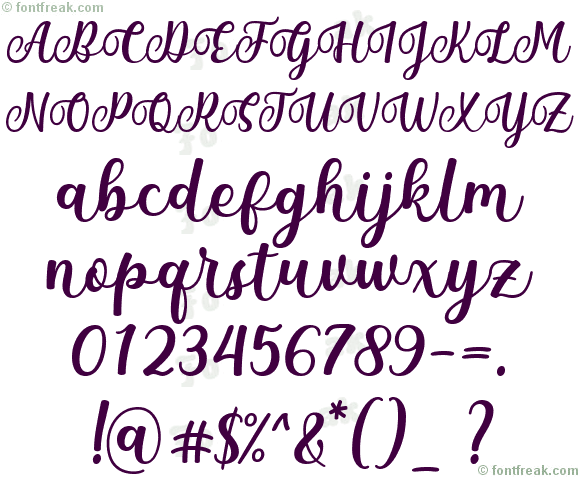
Mantul
About Mantul
Mantul, designed by Situjuh Nazara, is a captivating script font that beautifully blends elegance and modern flair. This freeware font, released in 2018 under the tag 7ntypes, showcases a flowing, cursive style that adds a personal touch to any project. The visual characteristics of the Mantul font feature a medium stroke weight with graceful curves and gentle contrasts. Its smooth, connected letters create a cohesive look, while the slight variations in line thickness offer a sense of dynamism and rhythm. The ample spacing between characters enhances readability, making it ideal for both digital and print applications.
The Mantul font is perfect for a variety of creative use cases. It shines in wedding invitations, where its romantic style can evoke feelings of love and celebration. Additionally, it works wonderfully for restaurant menus, providing a warm, inviting atmosphere that complements any dining experience. Graphic designers can also leverage Mantul in branding projects, as its distinctive charm can elevate logos and promotional materials. Content creators will find it suitable for social media graphics, where a handwritten aesthetic can engage audiences and create a personal connection.
Targeting graphic designers, small business owners, and content creators alike, Mantul offers versatility across various platforms. Its unique personality sets it apart from other script fonts, making it a standout choice for those seeking to impart a touch of elegance and creativity in their designs. With the Mantul font free download option, users can easily access this beautiful typeface and incorporate its stylish charm into their projects. Embrace the artistic flair of Mantul and transform your designs into memorable visual experiences.